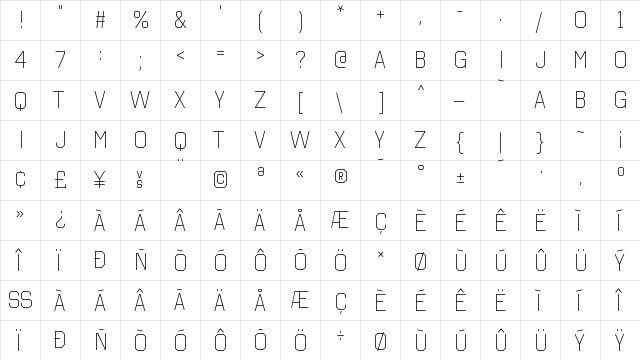
Octin College Light
Design Context for Octin College Typeface
Octin College has the bold swagger of sports branding: strong, assertive letterforms designed to dominate headlines and jerseys alike. The delicate stroke weight brings airiness and refinement to layouts.
A natural choice for gym brands, fantasy sports, jersey lettering, and action-driven headlines.
Font Pairing: Use alongside a condensed or geometric sans for supporting copy — keep the pairing bold, functional, and free of ornament.
Pro Tip: Use Octin College in all-caps headlines where its athletic energy can fully express itself. Pair with a solid, simple sans for supporting text.